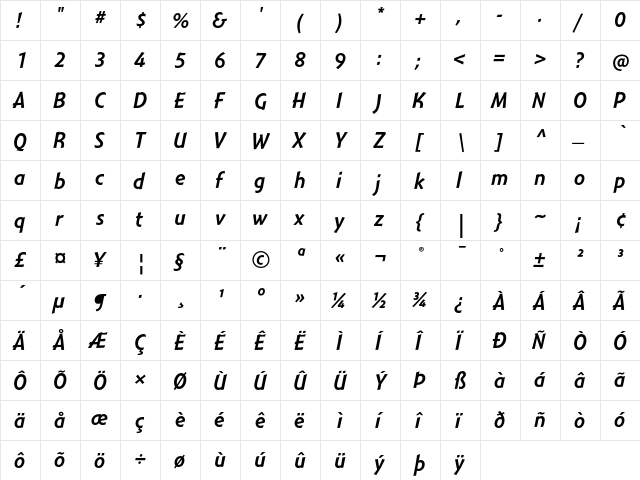
Montara Italic
Italic ·  Jim Parkinson ·
DesignerJim Parkinson
Design Context for Montara Typeface
Montara is a composed and adaptable typeface that performs quietly and consistently across a wide range of design contexts. The slanted form adds forward momentum and visual energy.
Pro Tip: Use Montara for emphasis, pull quotes, and subheadings where its slanted energy can add rhythm to the layout.